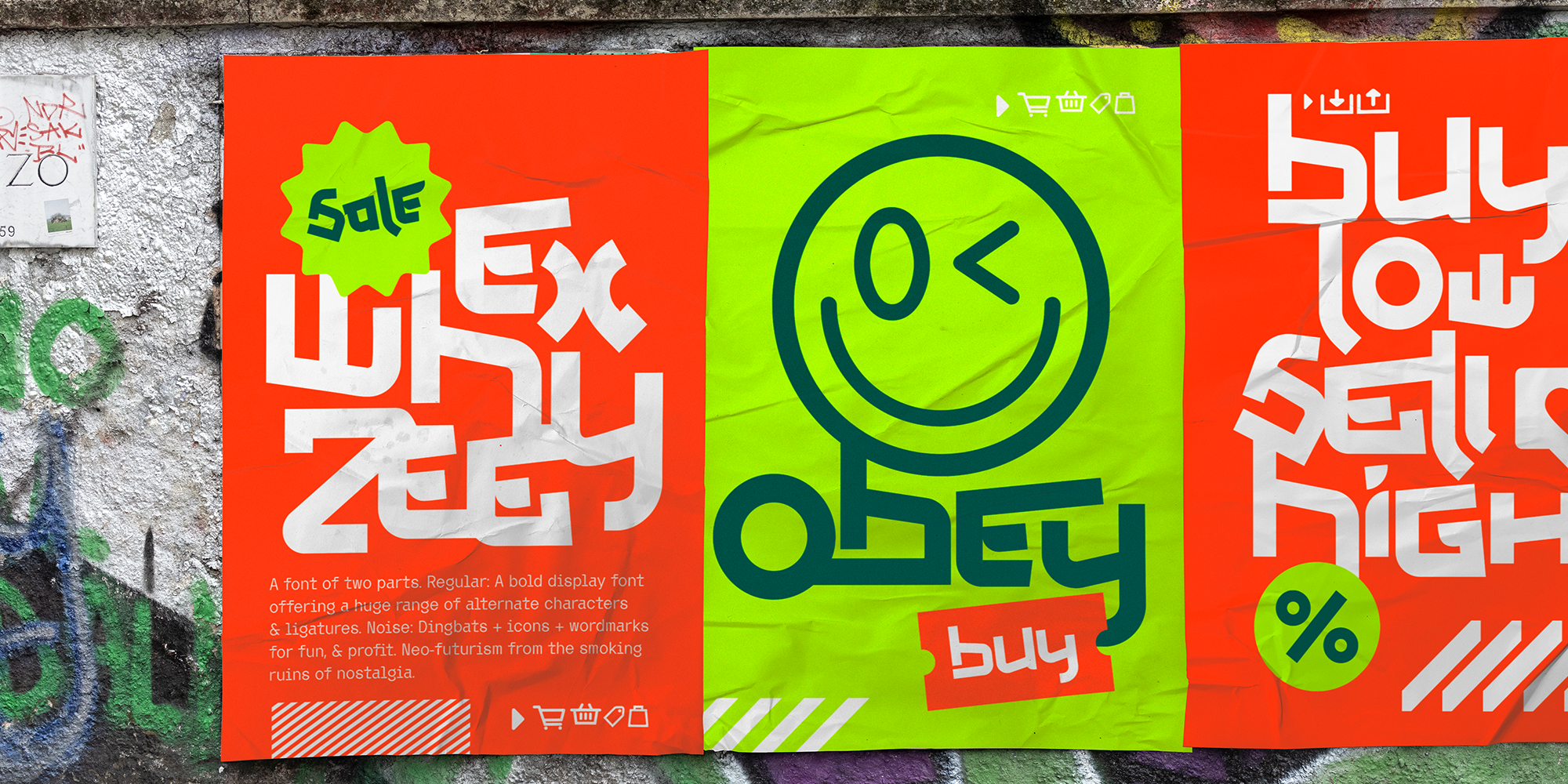
Ex Why Zee Font is perfect for educational alphabet materials, children's learning resources, elementary school displays, kindergarten worksheets, literacy programs, phonics instruction guides, reading comprehension materials, preschool signage, early childhood development centers, and ABC learning applications where clear, friendly letterforms support fundamental reading and writing education.
What makes Ex Why Zee Font exciting is its playful yet educational design that transforms alphabet learning into an engaging visual experience for young learners. This font features distinctively shaped letters with exaggerated characteristics that help children recognize and differentiate between similar letterforms. The friendly, approachable styling and consistent proportions make it ideal for applications where letter recognition, phonetic learning, and early literacy development are the primary educational objectives.
Ex Why Zee Font family includes Regular weight with specially designed uppercase and lowercase variations that emphasize the unique characteristics of each letter. The family also features outlined versions for coloring activities, dotted variants for tracing exercises, and bold styles for enhanced visibility in classroom settings. Each variation maintains the font's educational character while serving specific learning methodologies and teaching approaches.
The Ex Why Zee Font Free Download offers educators and parents access to typography specifically designed to support early literacy development and alphabet recognition skills. This font's pedagogical approach makes it exceptional for educational publishing, learning apps, and classroom materials where clear letter formation and visual distinction are crucial for student success. Its versatility extends to digital learning platforms, interactive educational games, and contemporary teaching resources.
Ex Why Zee Font supports comprehensive character coverage including numbers, basic punctuation, and educational symbols necessary for elementary learning materials. The font's carefully designed metrics ensure optimal spacing for beginning readers while maintaining the distinctive character shapes that aid in letter recognition and phonetic understanding. Its scalability works effectively from small workbook text to large classroom poster applications.
The font's educational presence makes it particularly effective for literacy instruction, alphabet books, and early learning materials where clarity and engagement are essential for student development. Whether designing phonics worksheets, alphabet flashcards, or educational software interfaces, Ex Why Zee Font delivers pedagogically sound typography that enhances learning outcomes and supports fundamental reading skill development.